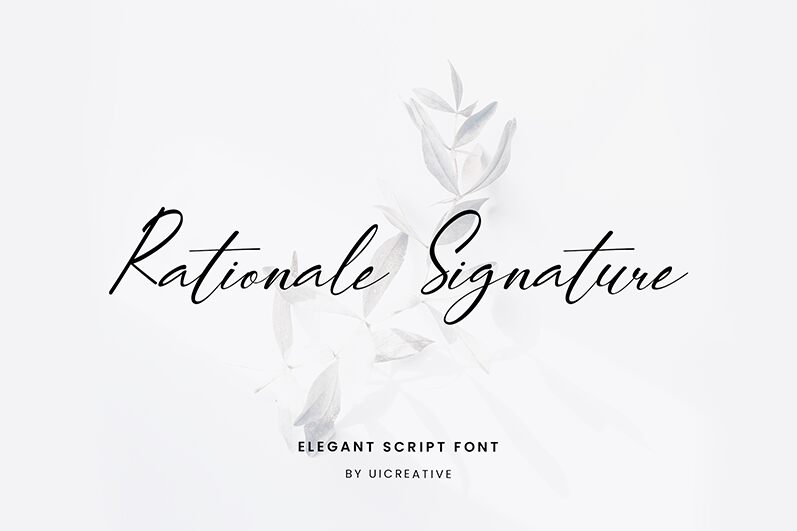
RationaleSignature
Rationale Signature font is a sophisticated handwritten font from UI Creative. Its fluid and expressive lines offer an elegant and stylish touch, making it the perfect choice for those who need that contemporary signature style that will instantly engage readers with its decorative characters.
Update your blog, Youtube videos, and posters with a new personalized heading. Create unusual letterheads that can decorate wedding or event invitations and use the texts in social media posts or on business cards.